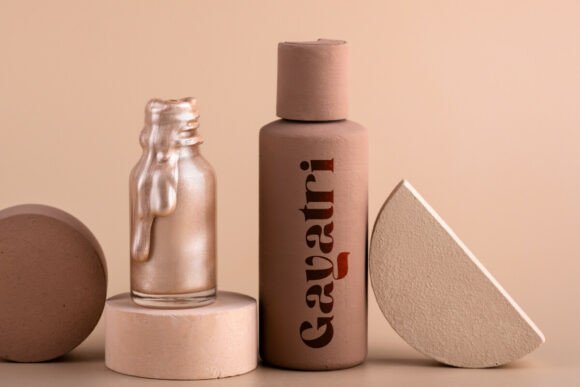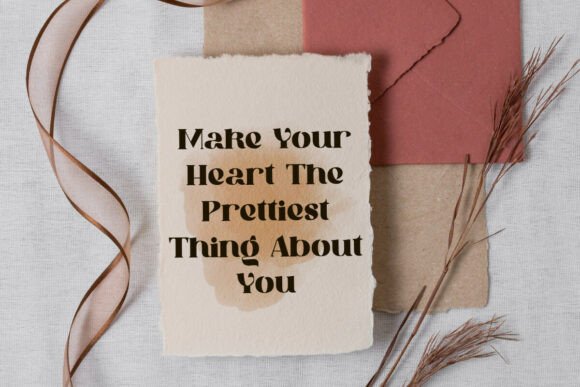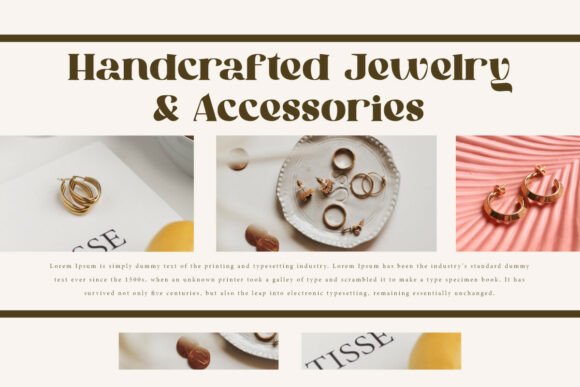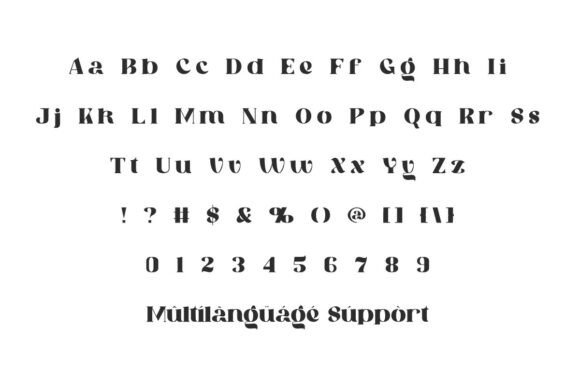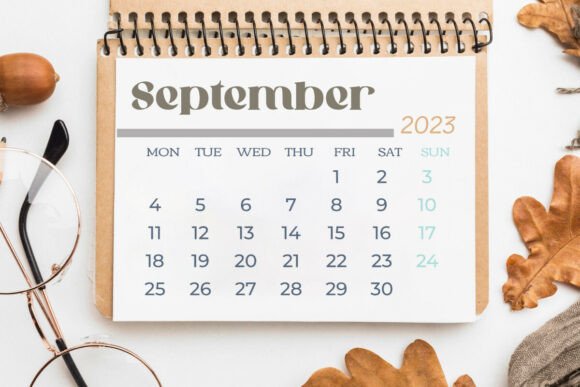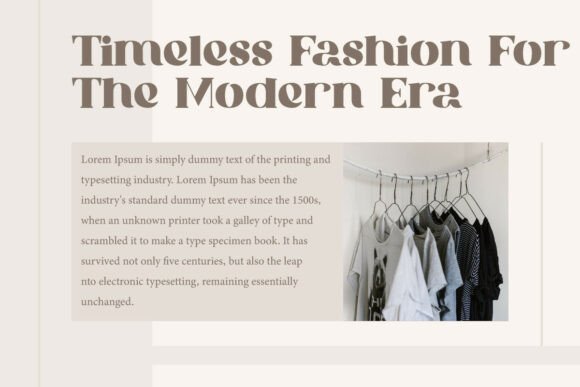
Boca Grande Font: Elevate Your Designs with Elegance and Sophistication
In the world of typography, a font can make or break a design. With the right font, you can convey the perfect tone, evoke emotions, and capture the essence of your brand. If you’re looking for a font that exudes elegance, sophistication, and a touch of playfulness, look no further than Boca Grande. This modern, high-contrast serif font is designed to bring a fresh personality to your designs, making it ideal for logos, fashion branding, lifestyle magazines, editorial headers, and packaging.
A Perfect Balance of Classic and Quirky
Boca Grande boasts sharp edges and subtle curves, creating a beautiful balance between classic structure and quirky flair. Its clean lines and refined features make it perfect for designs that require a touch of sophistication, while its playful undertones add a dash of creativity and whimsy. Whether you’re designing a logo, brochure, or website, Boca Grande is sure to make a statement.
Designed with Elegance in Mind
Boca Grande is designed with elegance and refinement in mind. Its high-contrast serif design gives it a luxurious feel, making it perfect for high-end brands, fashion labels, and lifestyle publications. The font’s clean ligatures and alternate letterforms add a touch of creativity and versatility, allowing designers to experiment with different styles and layouts.
Ideal for a Variety of Design Applications
Boca Grande is a versatile font that can be used in a variety of design applications. Its refined features and elegant lines make it perfect for:
• Logos: Create a lasting impression with a custom logo that showcases your brand’s personality and style.
• Fashion Branding: Elevate your fashion brand with a font that exudes luxury, sophistication, and style.
• Lifestyle Magazines: Add a touch of elegance and refinement to your magazine’s editorial headers and articles.
• Editorial Headers: Make a statement with bold, eye-catching headers that showcase your brand’s personality.
• Packaging: Add a touch of sophistication and elegance to your product packaging with Boca Grande.
Key Features of Boca Grande
Boca Grande comes with a range of features that make it a versatile and creative font. Some of its key features include:
• Clean Ligatures: Add a touch of elegance and refinement to your designs with clean ligatures that connect letters seamlessly.
• Alternate Letterforms: Experiment with different styles and layouts using alternate letterforms that add a touch of creativity and whimsy.
• High-Contrast Serif Design: Give your designs a luxurious feel with a high-contrast serif design that exudes elegance and sophistication.
Why Choose Boca Grande?
With so many fonts to choose from, why choose Boca Grande? Here are just a few reasons why Boca Grande stands out from the crowd:
• Unique Personality: Boca Grande has a unique personality that sets it apart from other fonts. Its blend of classic and quirky features makes it perfect for designers who want to create something truly special.
• Versatility: Boca Grande is a versatile font that can be used in a variety of design applications, from logos and branding to editorial headers and packaging.
• Elegance and Sophistication: Boca Grande exudes elegance and sophistication, making it perfect for high-end brands, fashion labels, and lifestyle publications.
In conclusion, Boca Grande is a modern, high-contrast serif font that is perfect for designers who want to add a touch of elegance and sophistication to their designs. With its unique personality, versatility, and range of features, Boca Grande is sure to become a go-to font for designers and crafters alike.